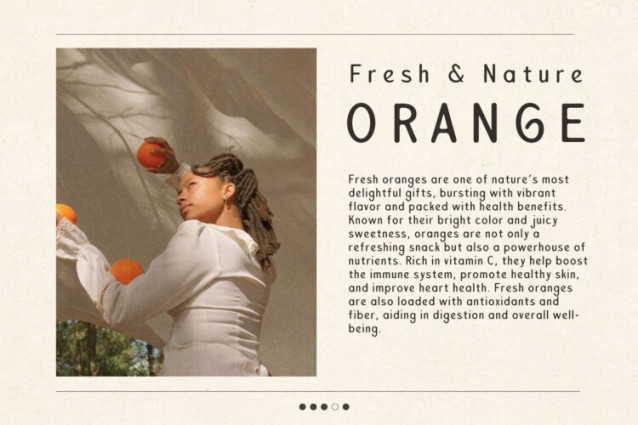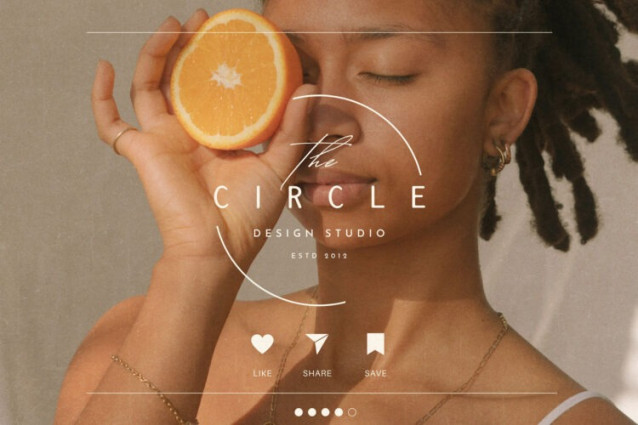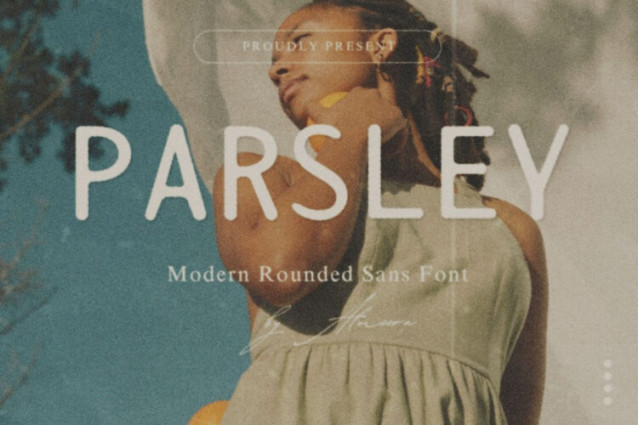
Parsley Font
Parsley Font, modern sans serif font with elegant style this is perfect for branding, logos, invitation, magazines, product packaging and more.